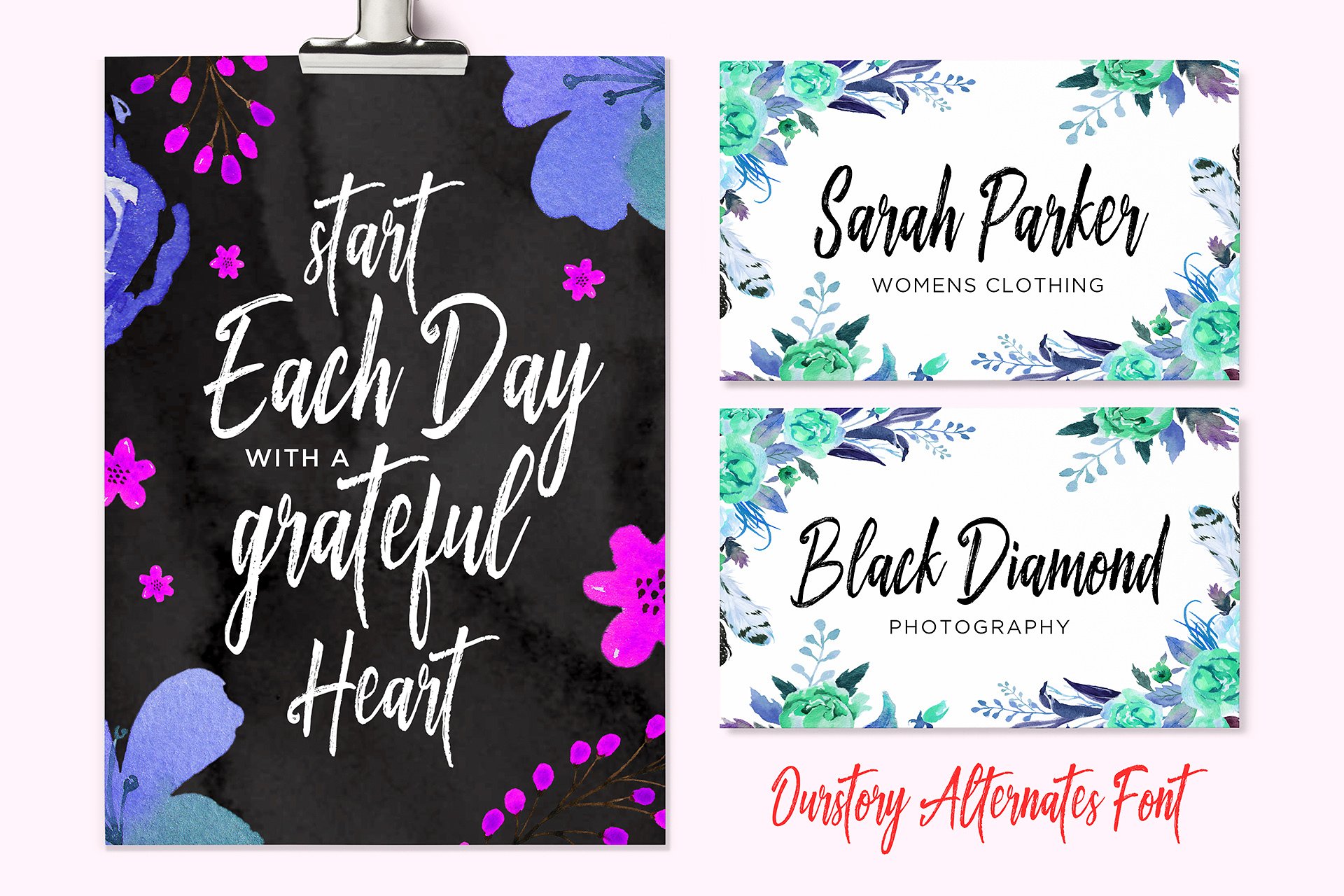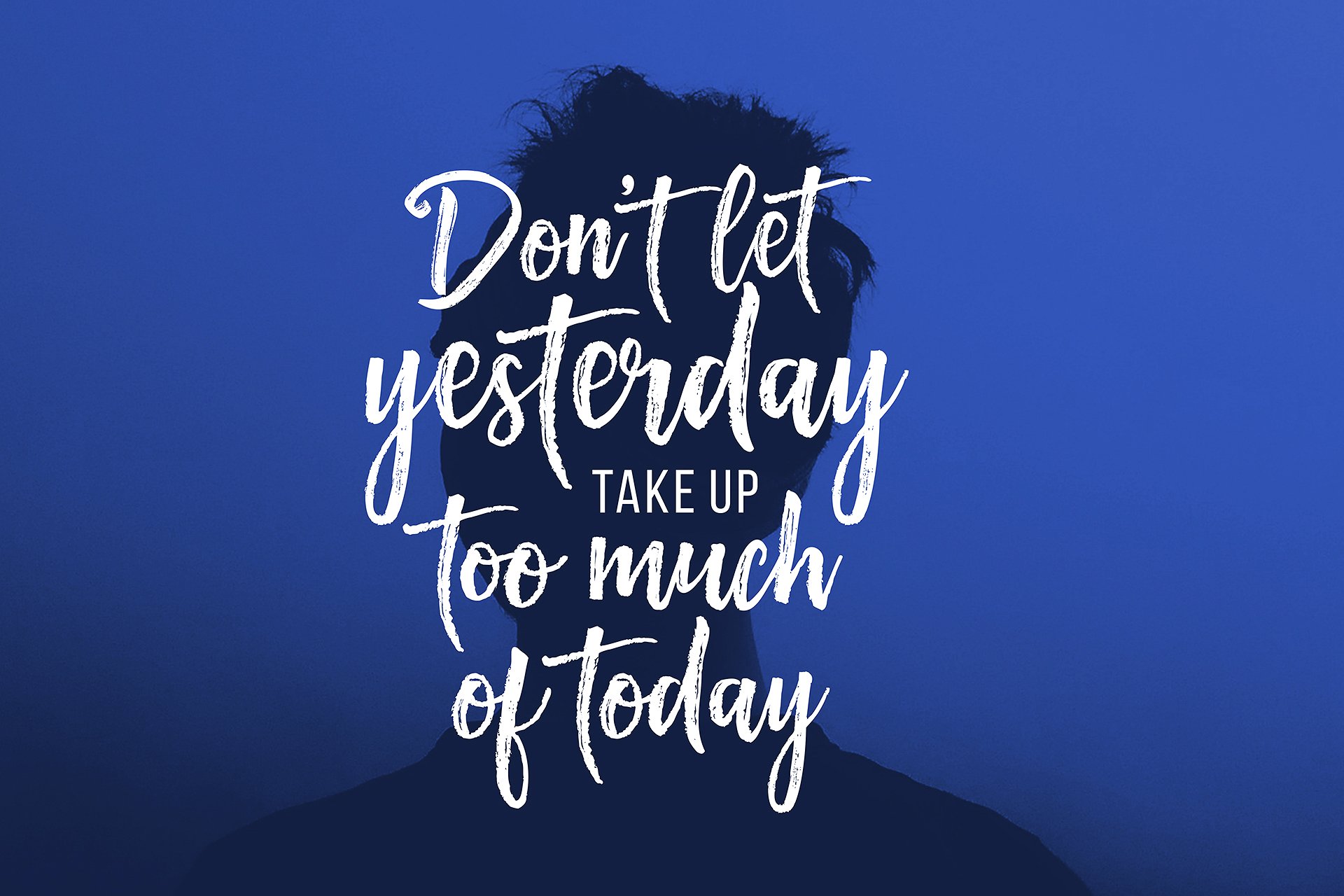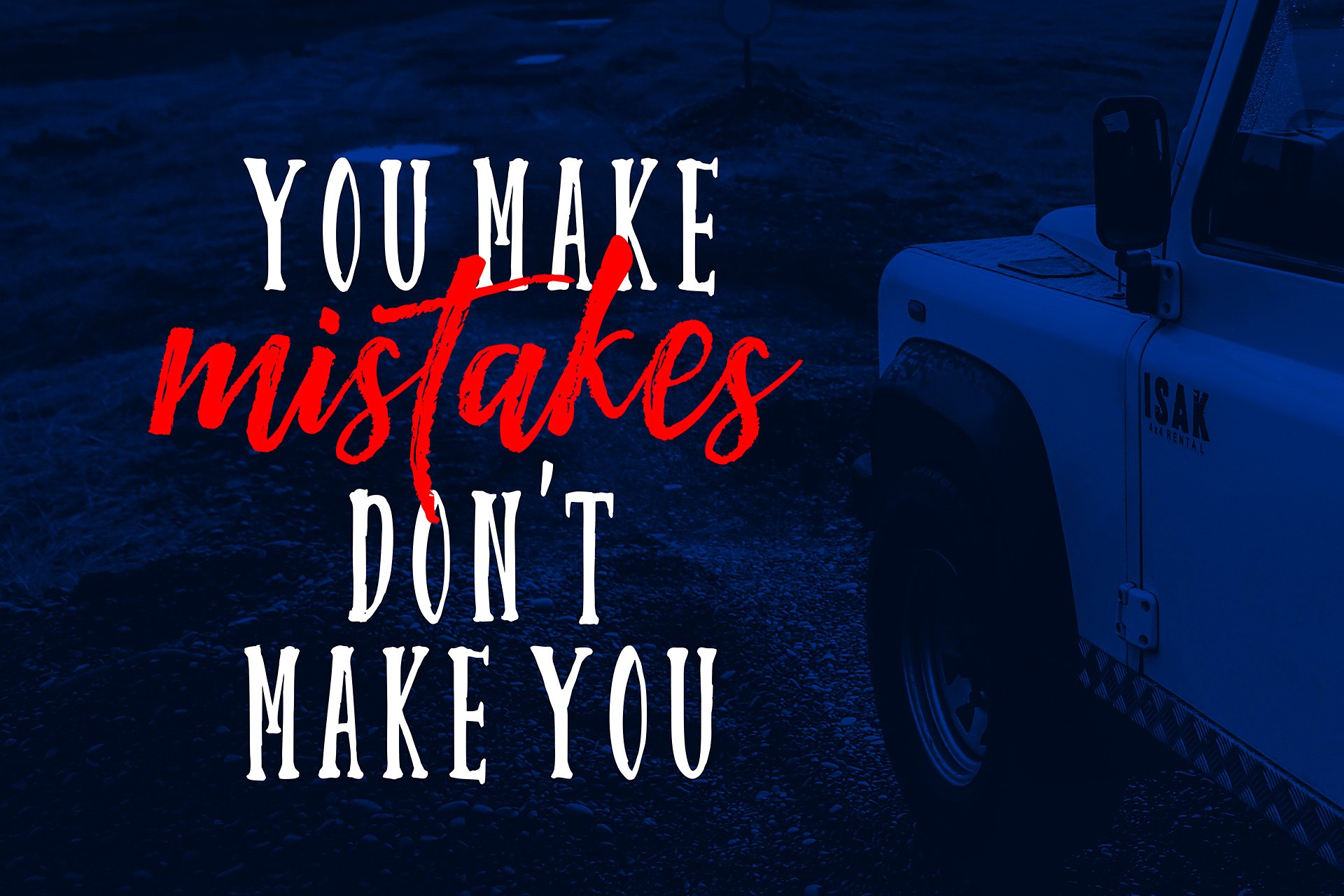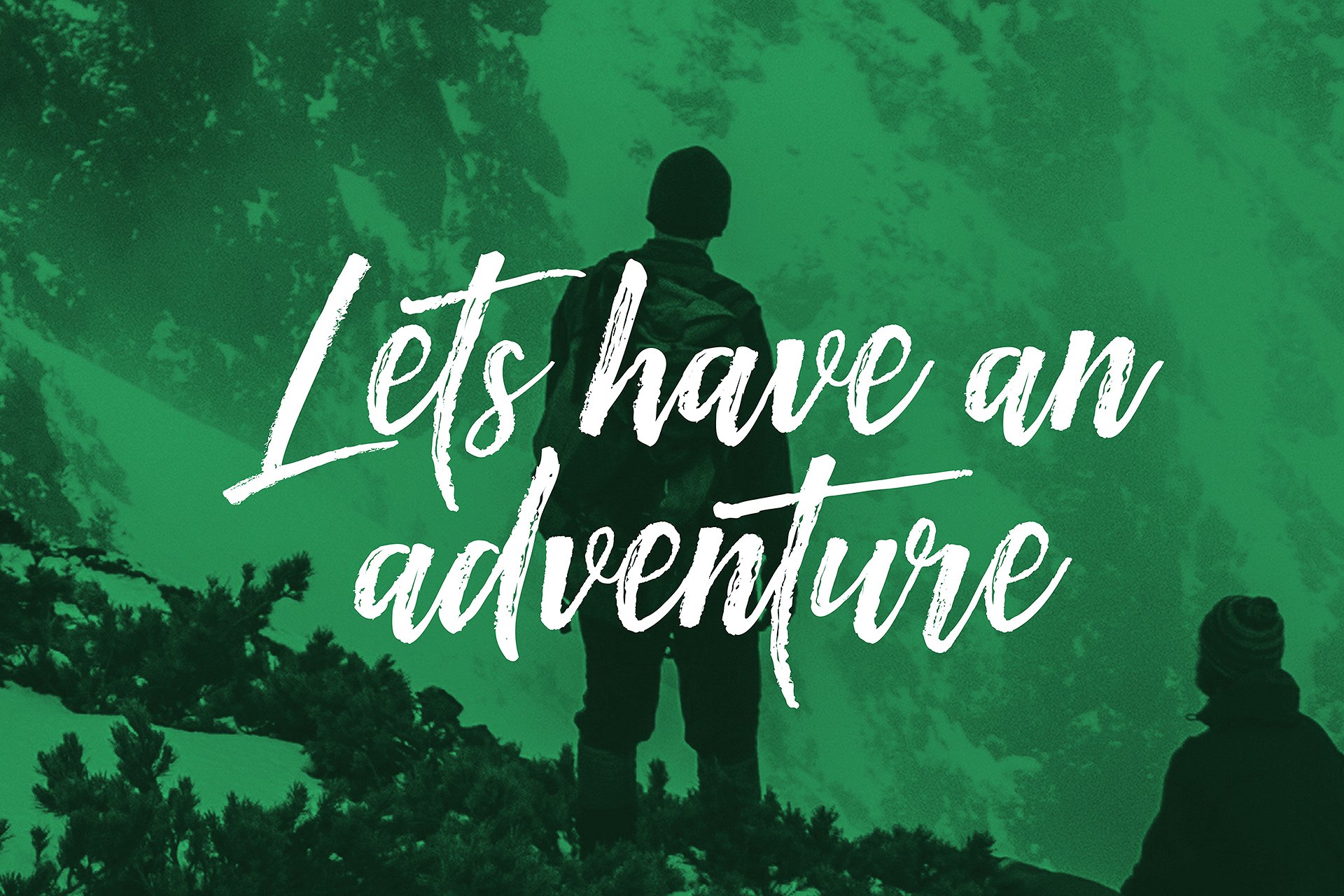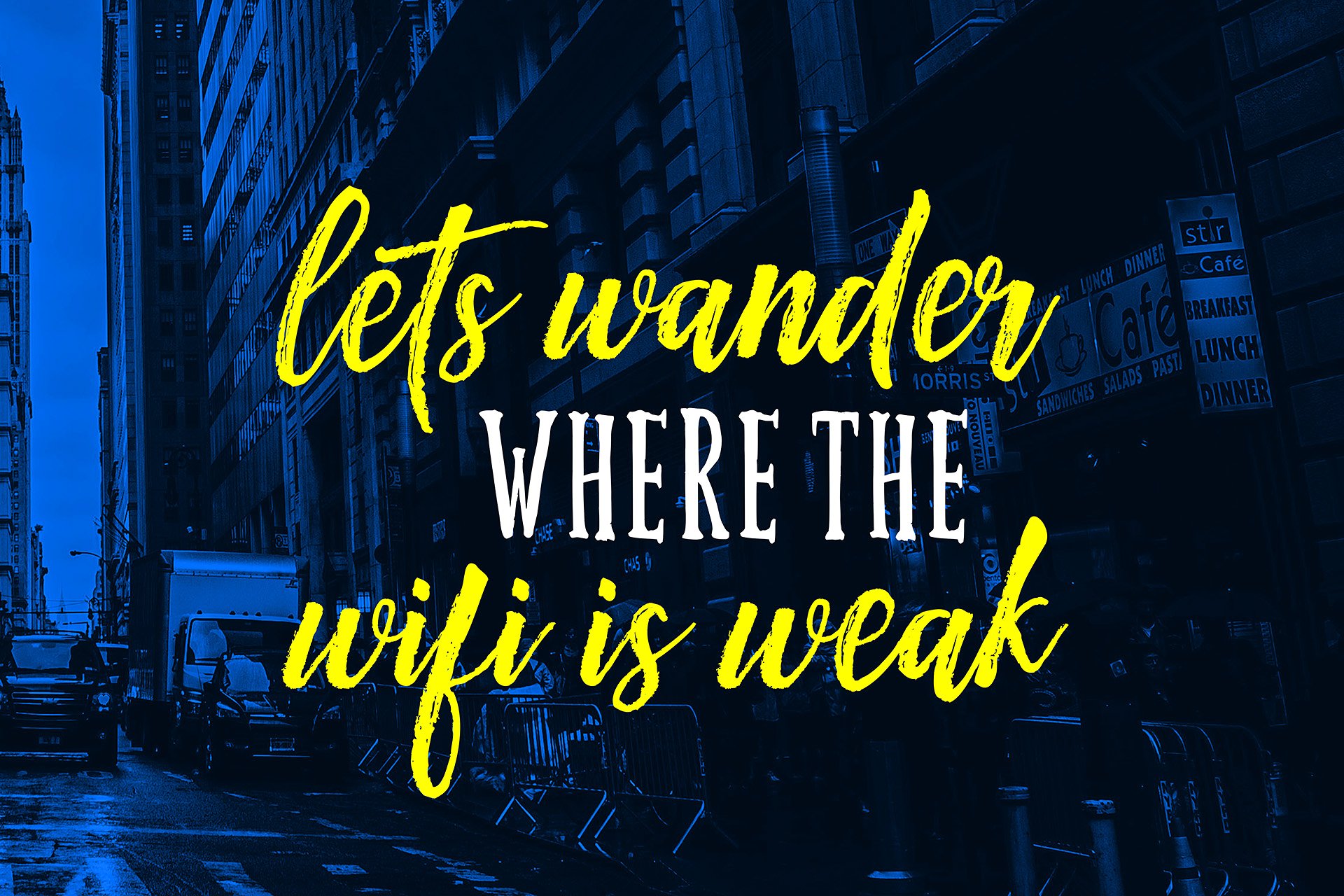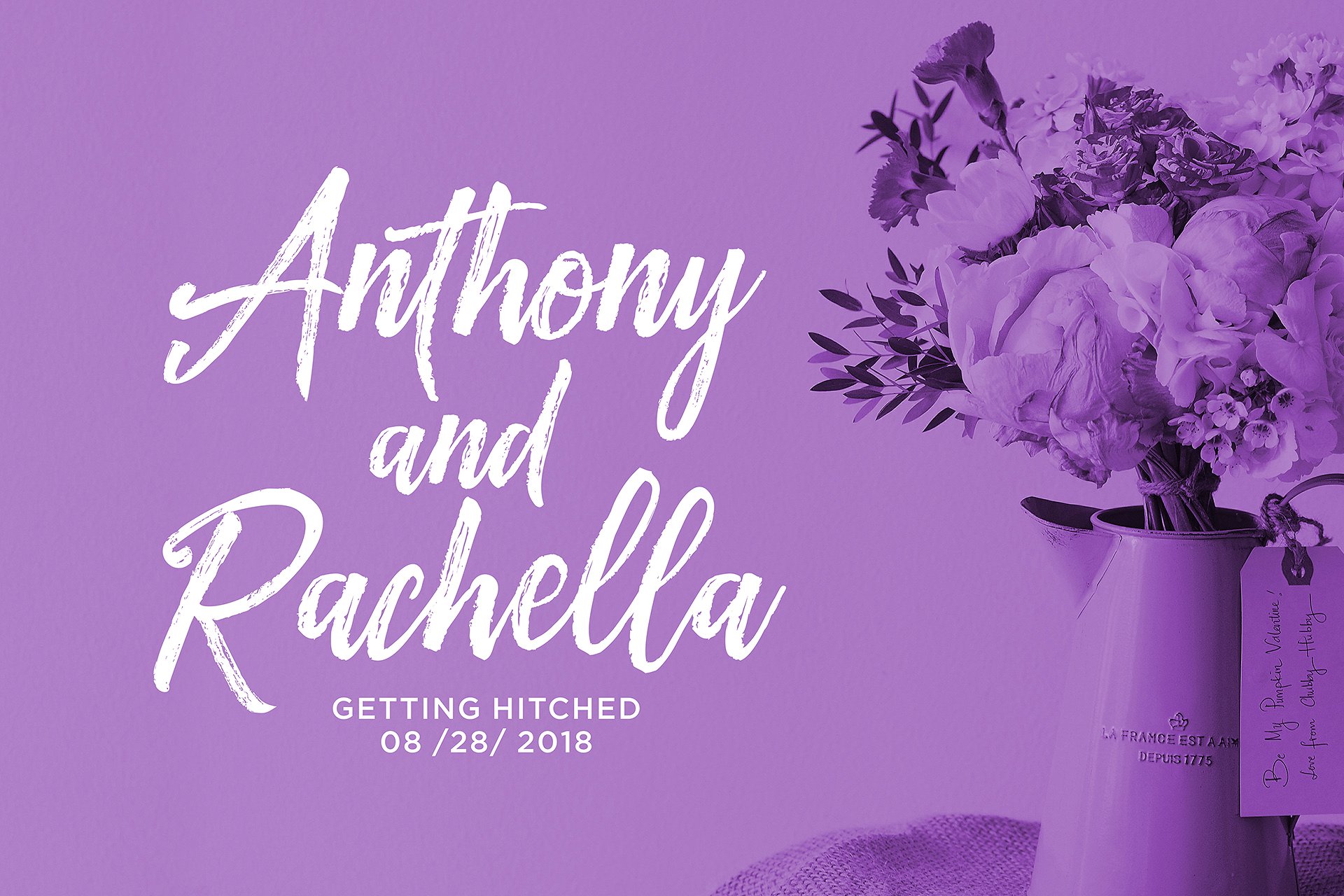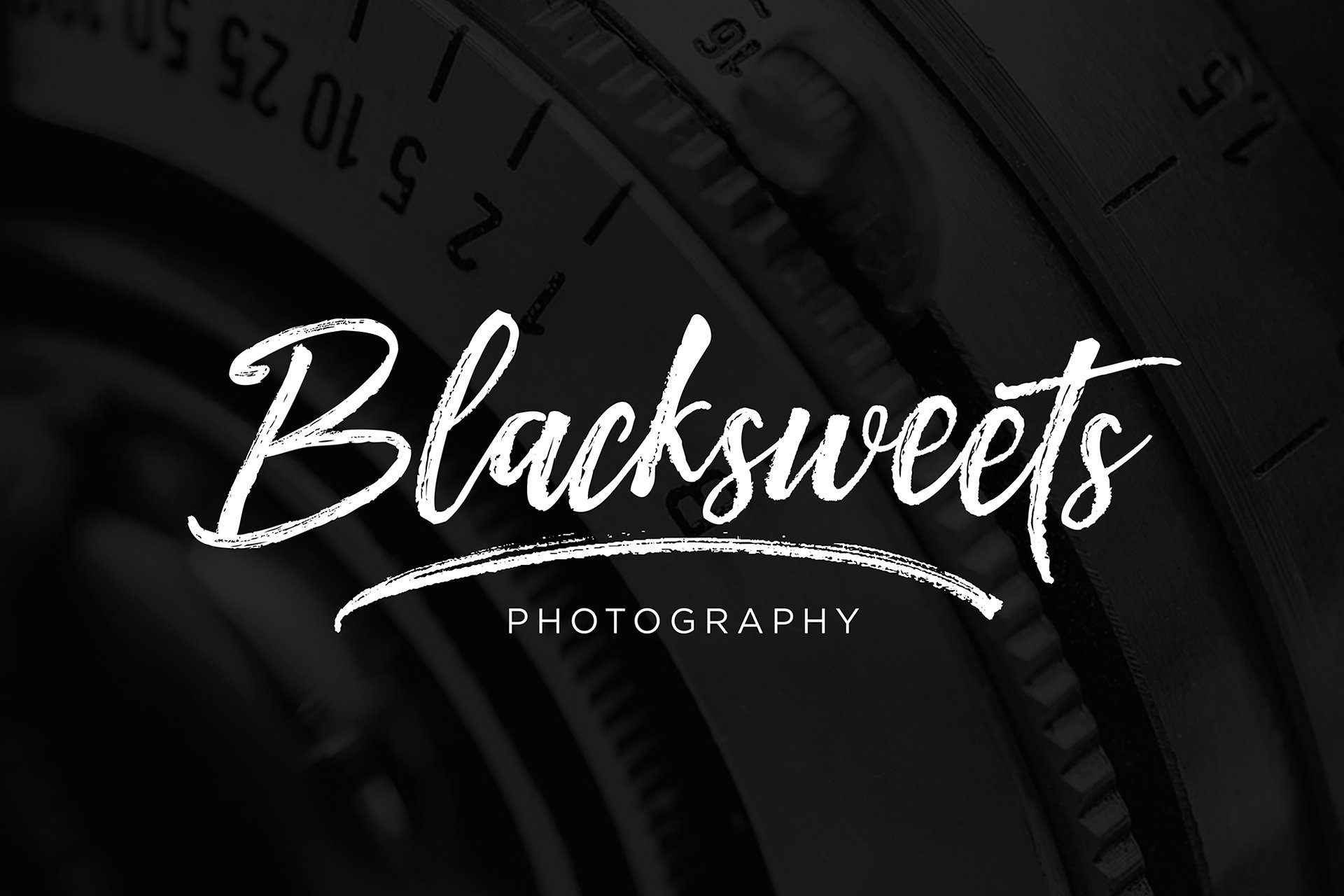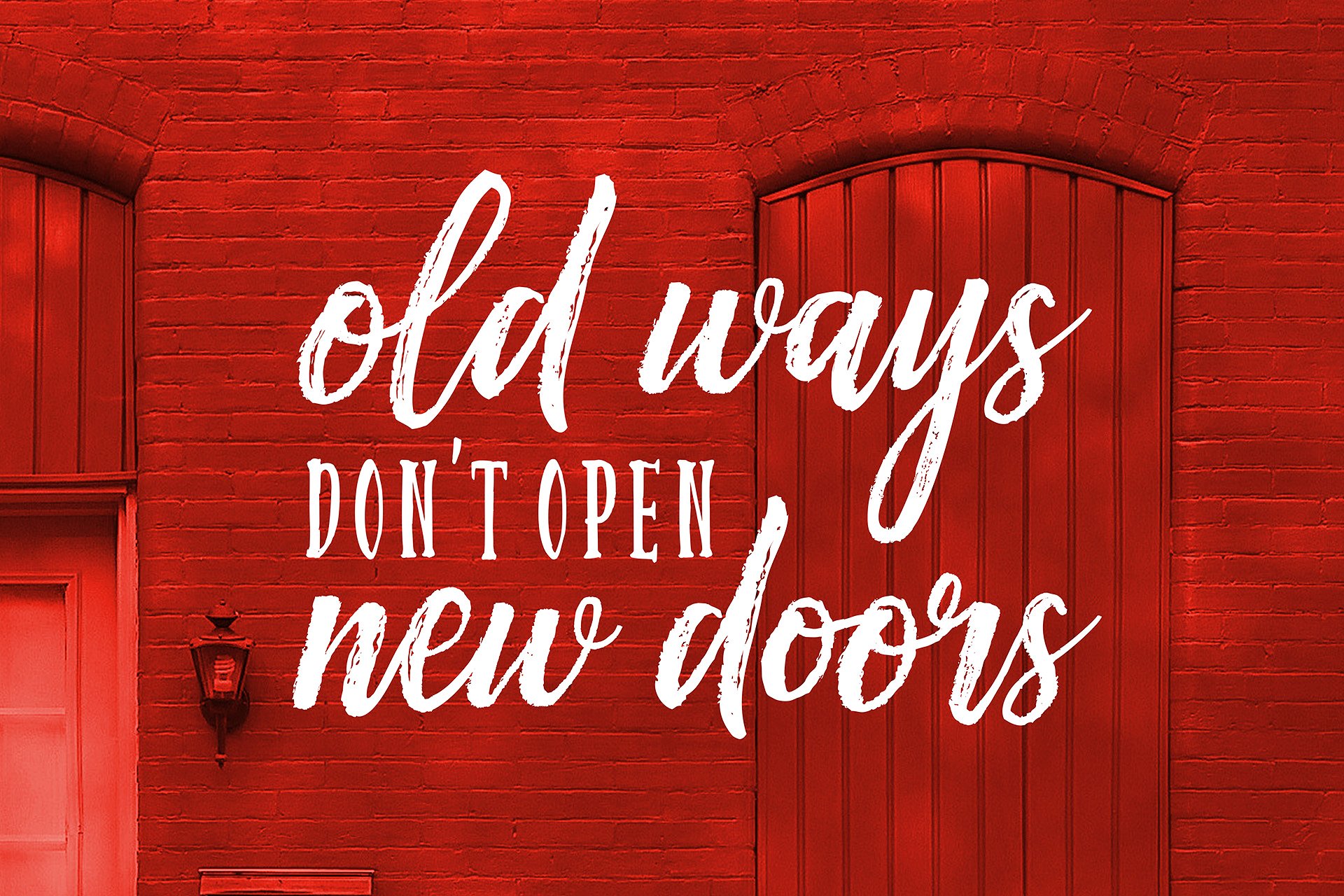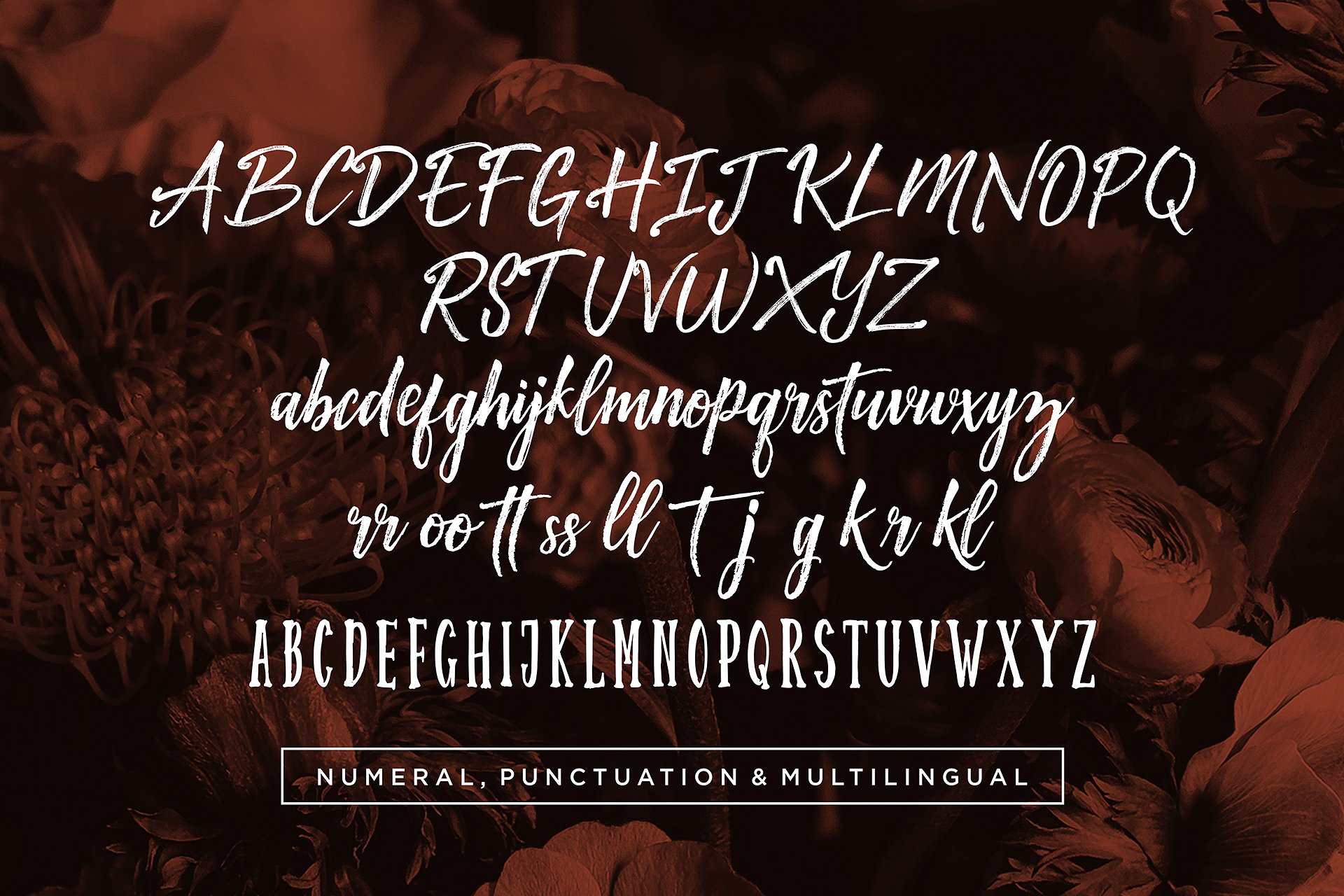
Ourstory Font Duo Font
About Ourstory Font Duo Font
Ourstory is a hand drawn textured brush font, taking a very contemporary approach to typography. Deftly crafted, Ourstory works well together or separately; the possibilities are endless – yet stylish.